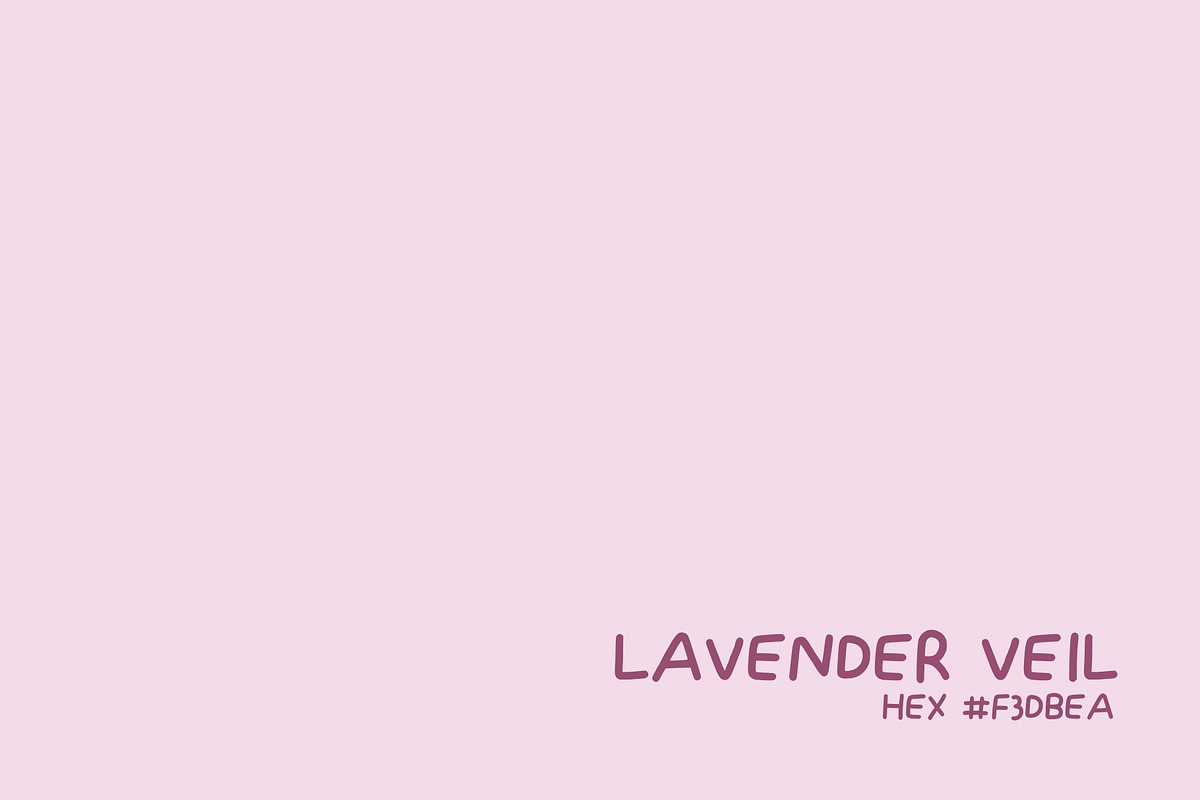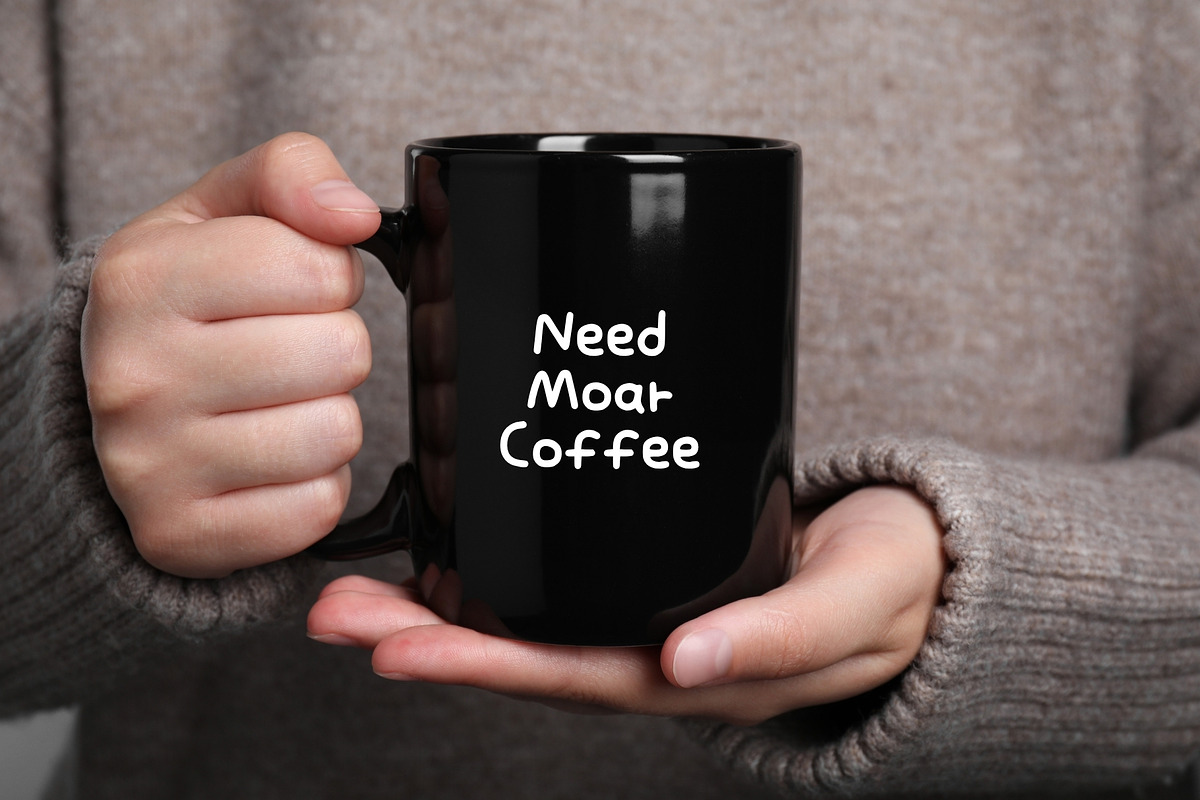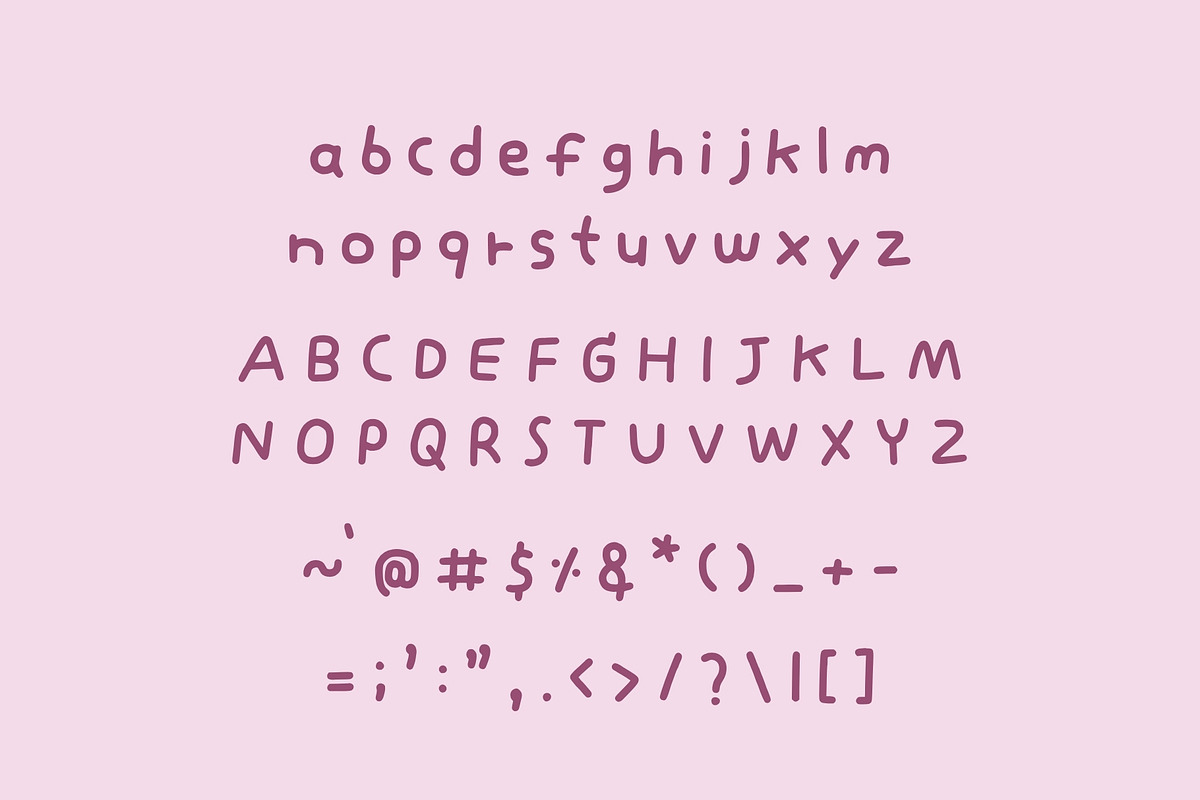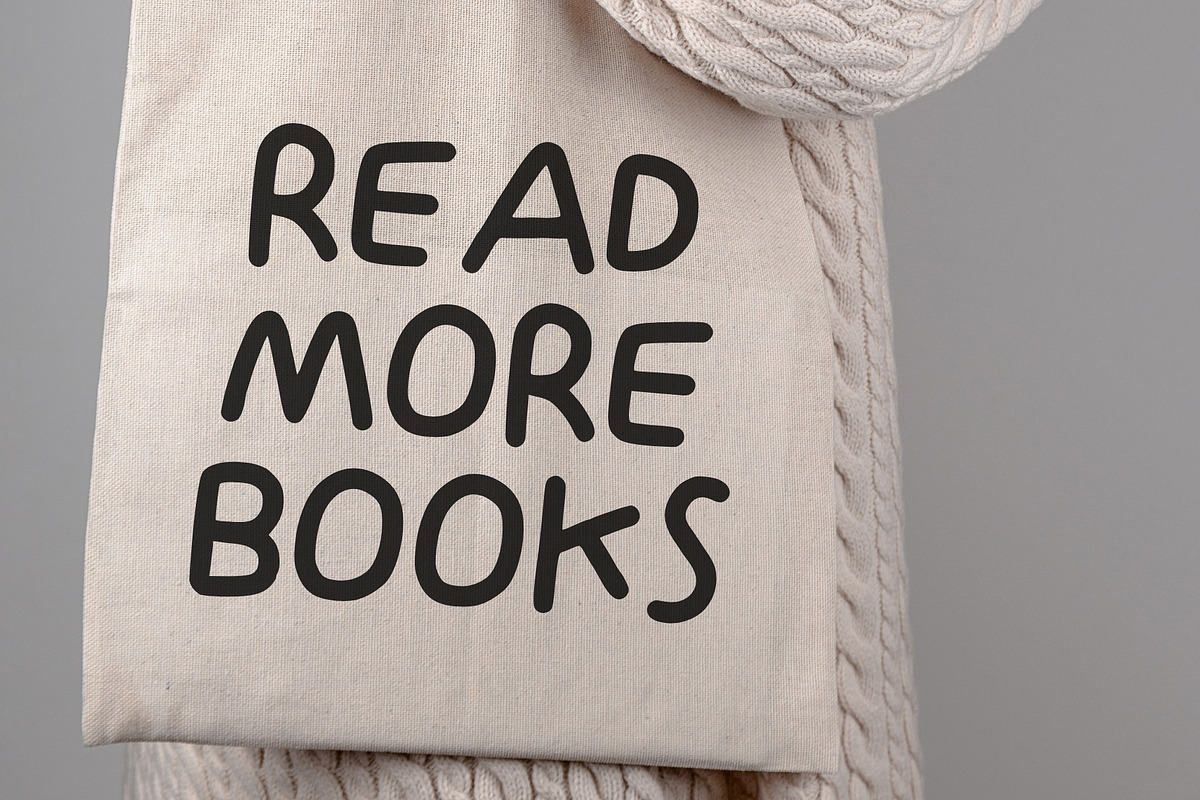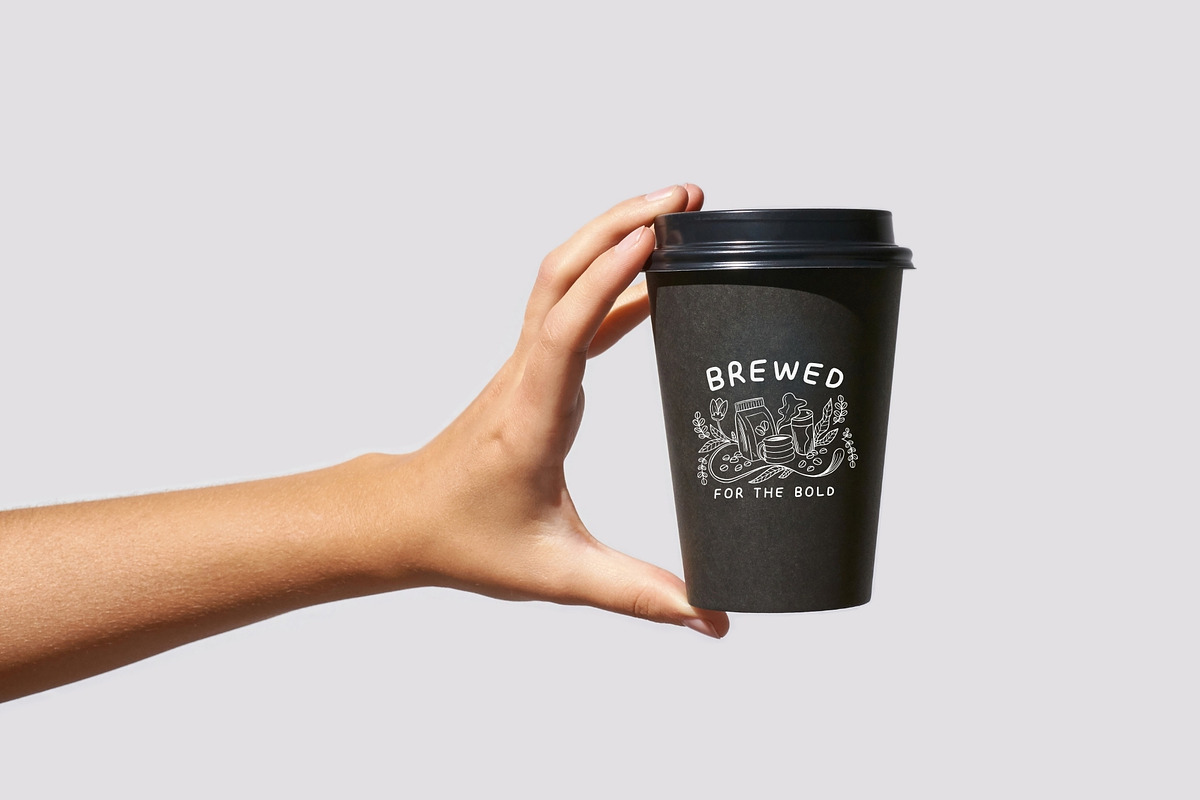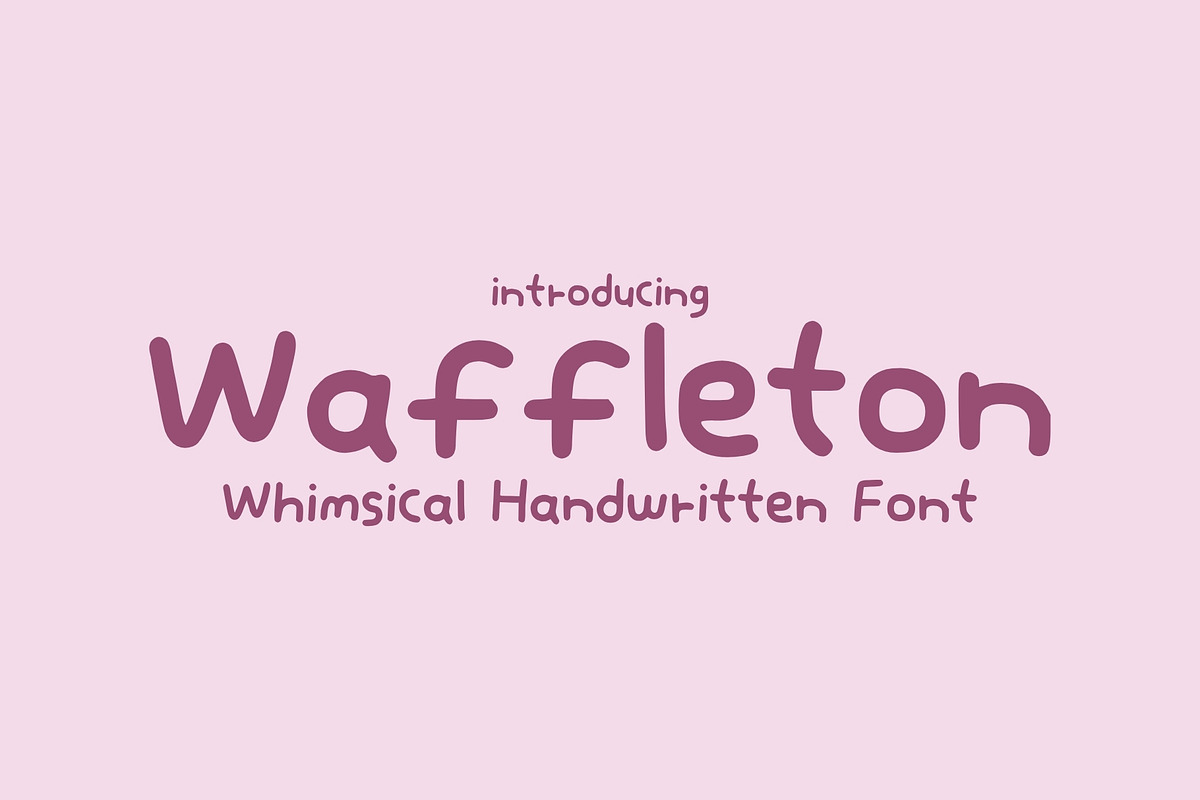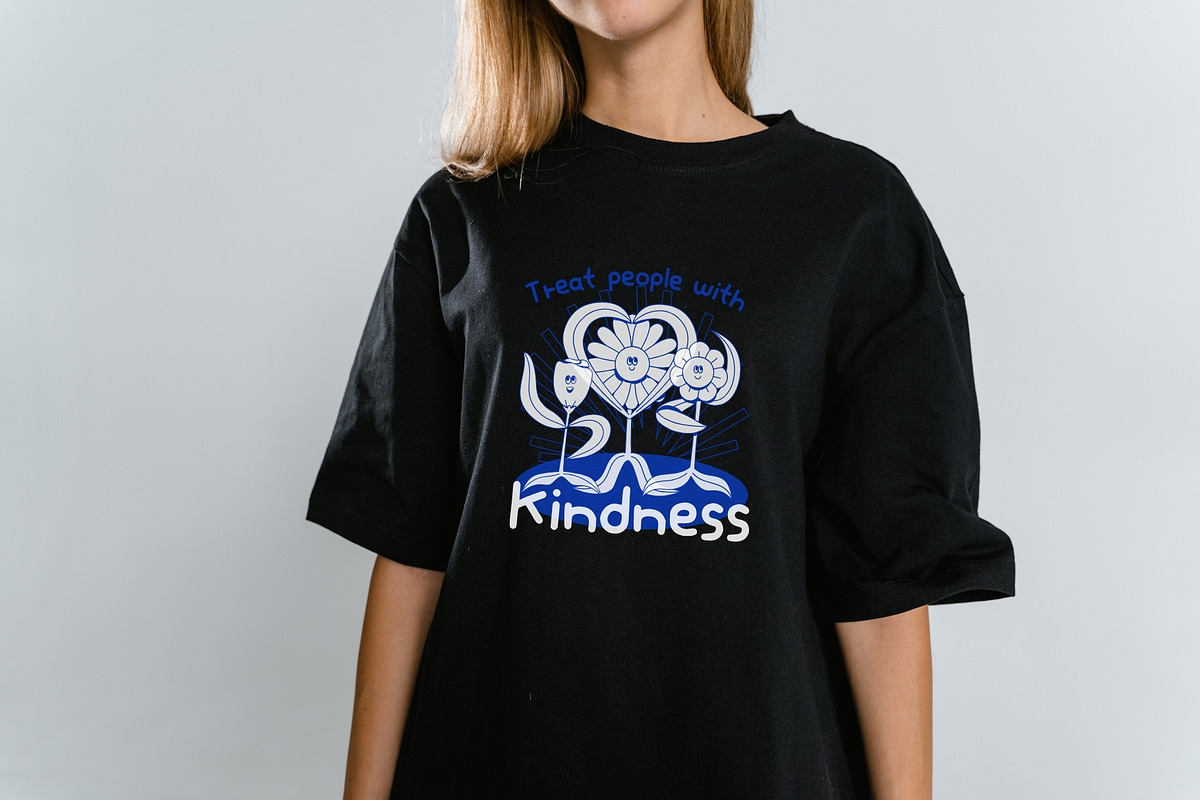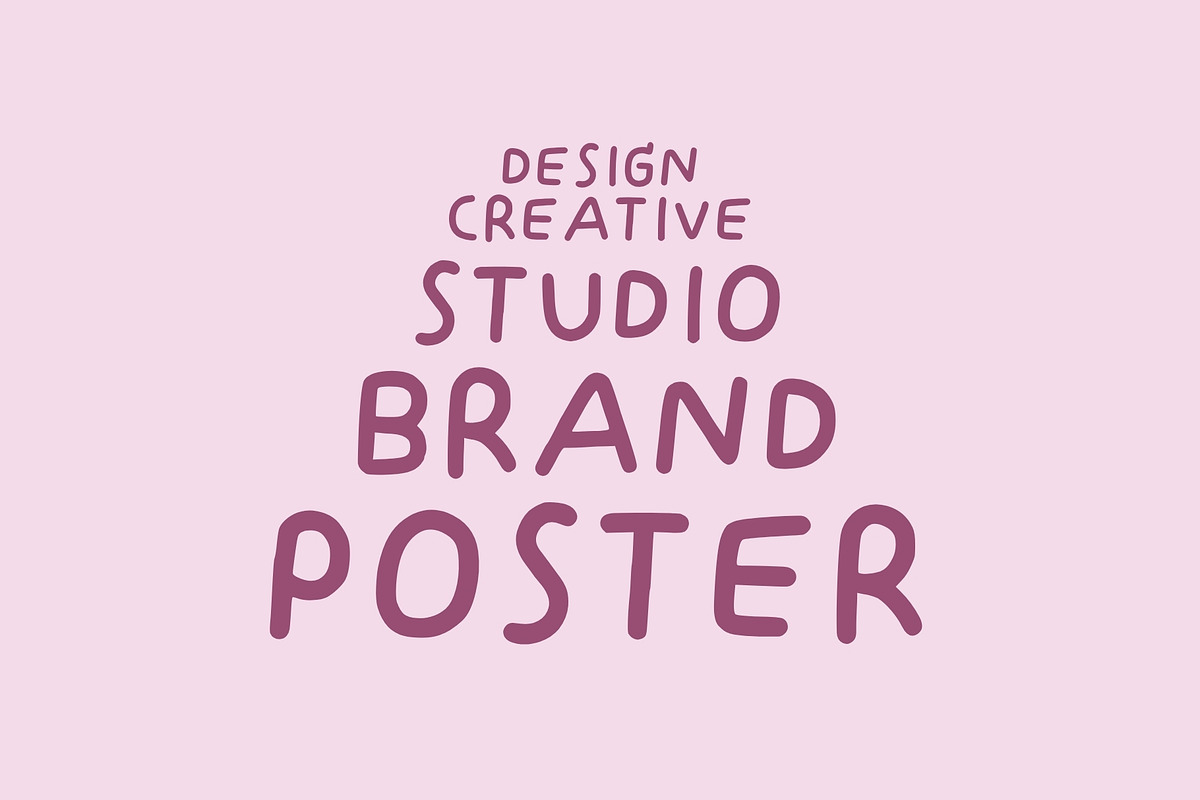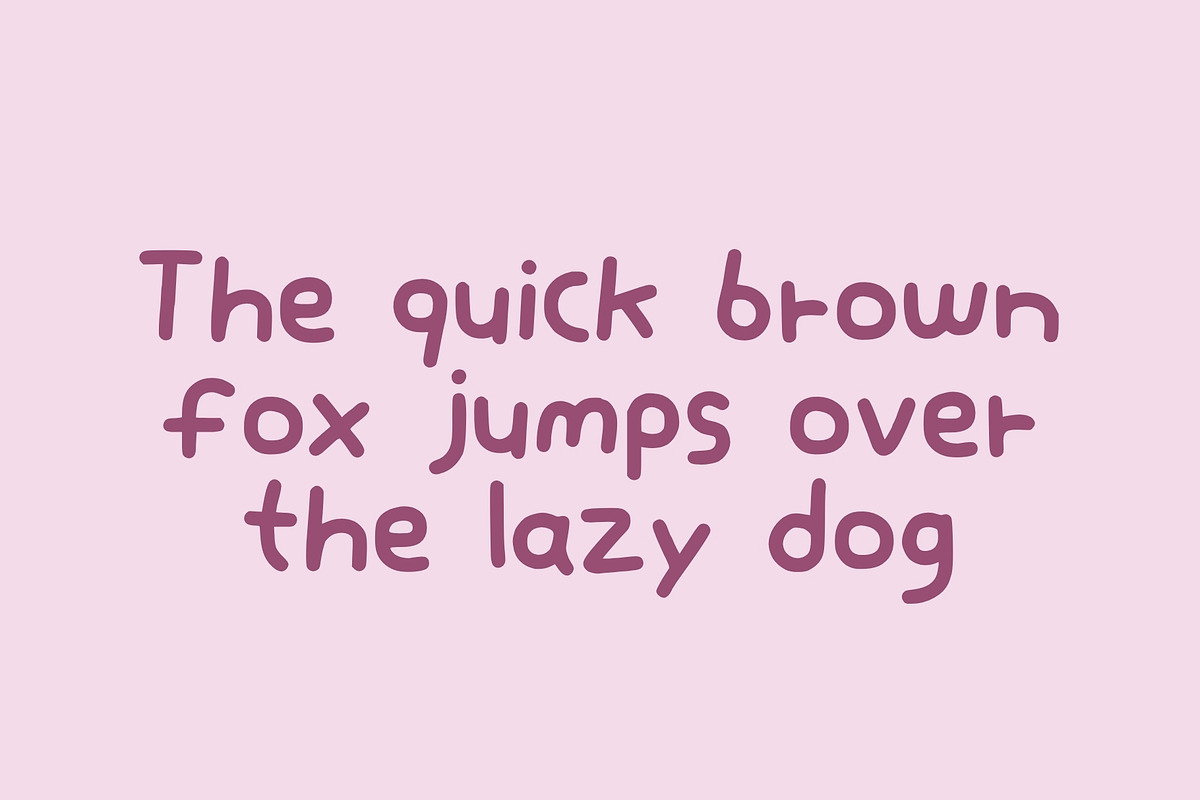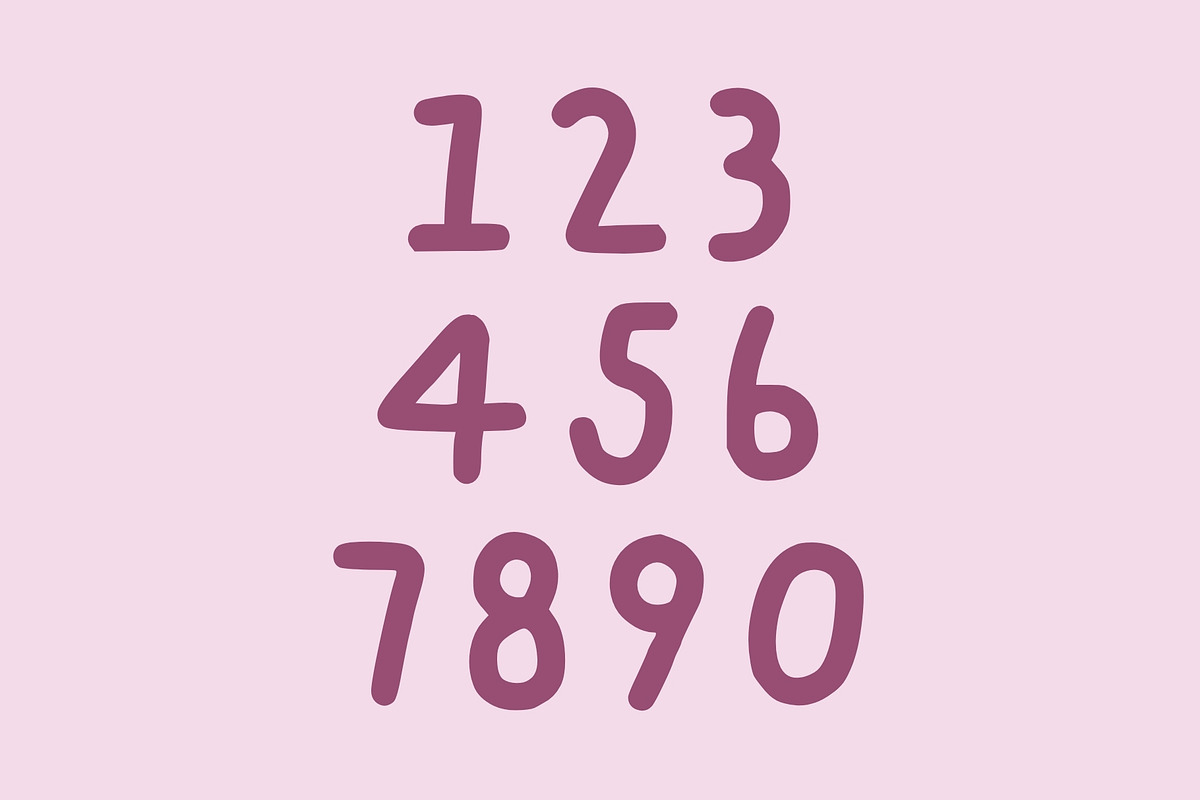
Waffleton - Handwritten Font
Waffleton is a charming handwritten typeface bursting with warmth, whimsy, and personality. Designed with playful curves, organic strokes, and a naturally imperfect flow, this font brings a handcrafted feel to every design it touches.
Its friendly letterforms feel casual, expressive, and full of life—making it perfect for projects that need a human touch. Every character carries a lighthearted rhythm that feels approachable, creative, and effortlessly fun.
Whether you're designing for children’s products, playful branding, greeting cards, packaging, social media graphics, invitations, or creative merchandise, Waffleton adds instant charm and personality.
Soft, quirky, and full of character, Waffleton transforms ordinary words into something memorable.